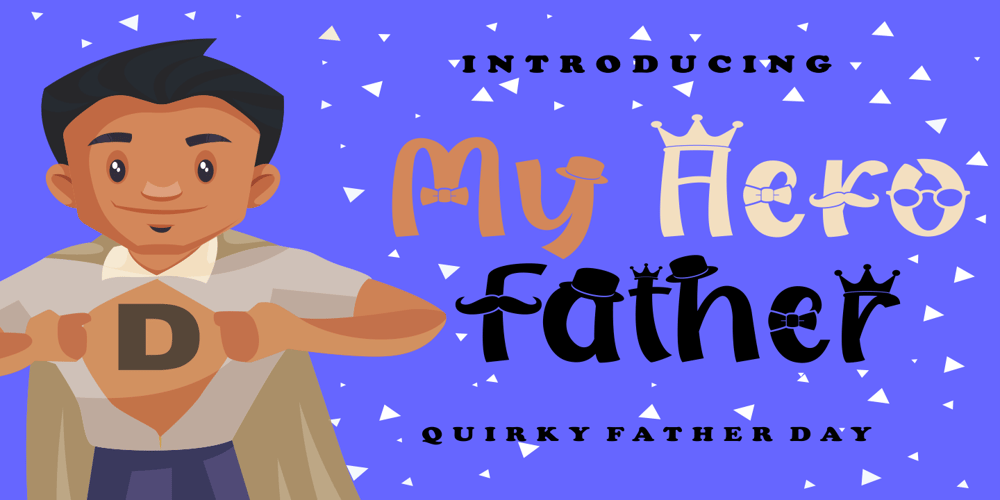
My Hero Father Font Family was designed by Putra Novembria Candra Kusuma and published by Putracetol. My Hero Father contains 7 styles and family package options. My Hero Father is a quirky playful font with father’s day theme. This font has 7 variations of fonts, each variation has a different decoration. The decorations are items that a father often wears, such as: cigarettes, glasses, hats, mustaches, ribbons and crowns.I made this font specifically for the Father’s Day theme, but other than that this font can also be used for other projects. This font is suitable for logos, crafting, greeting cards, invitation cards, social media, products, stickers, headings, quotes and more.This font is also support multi language.